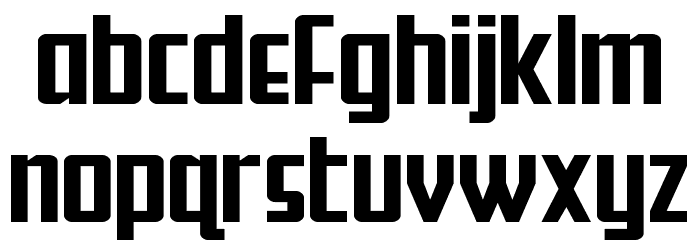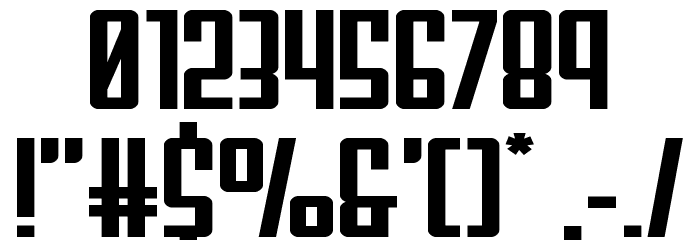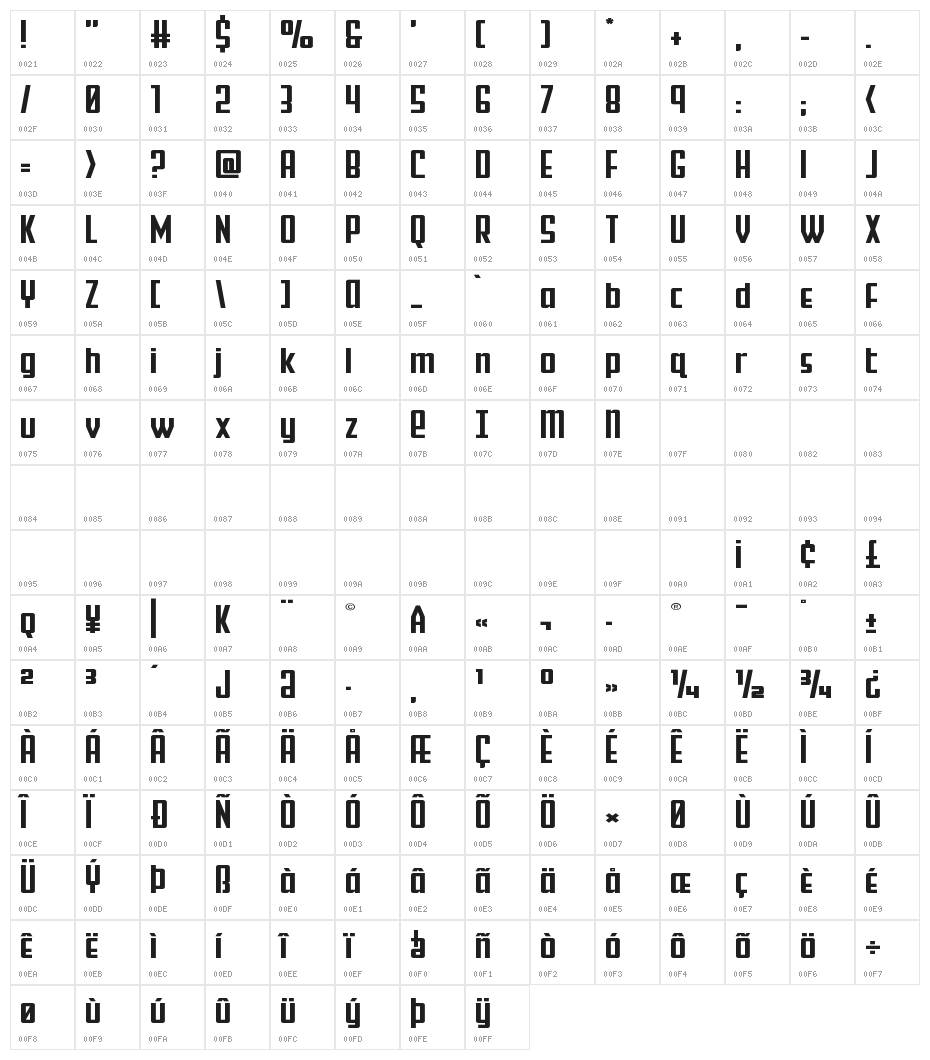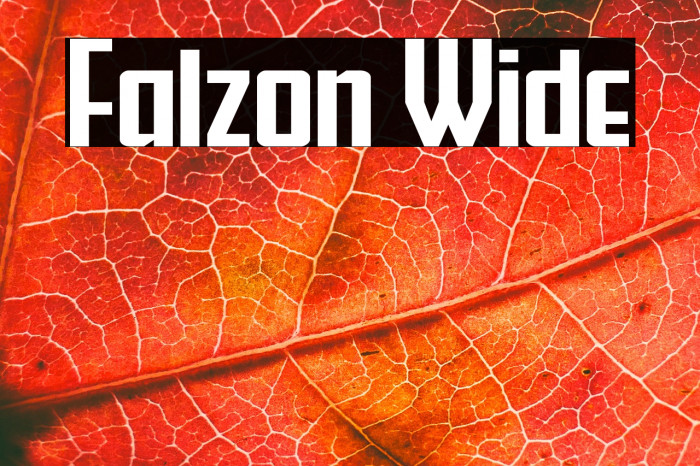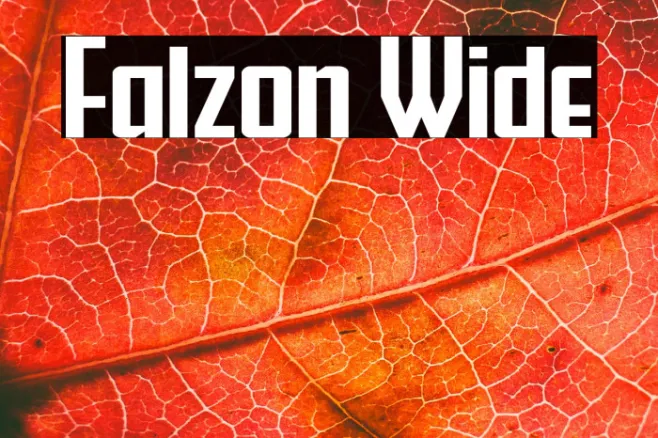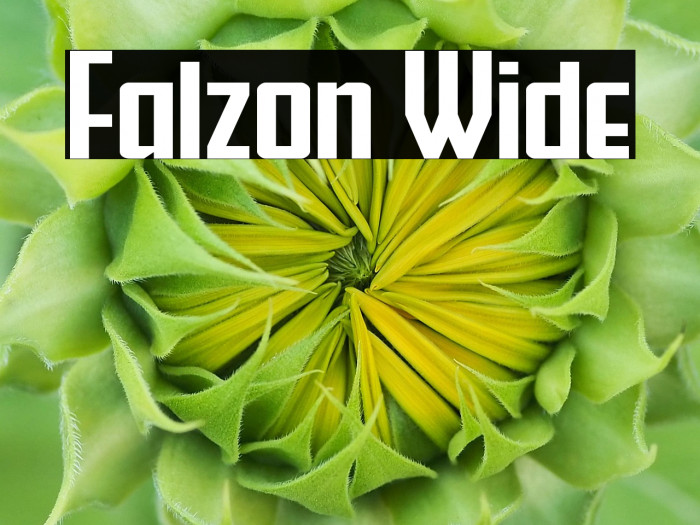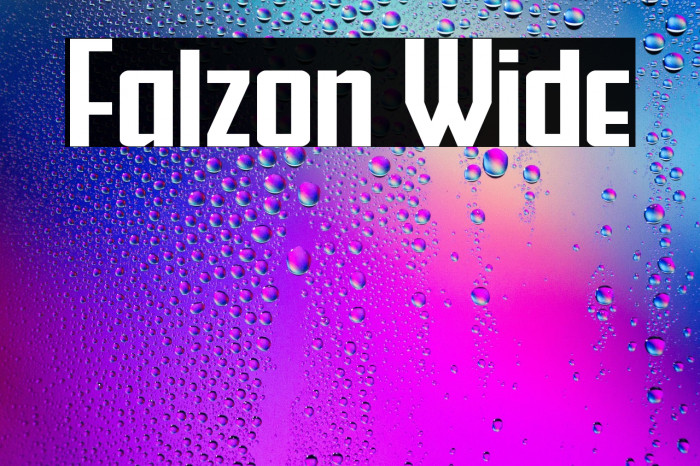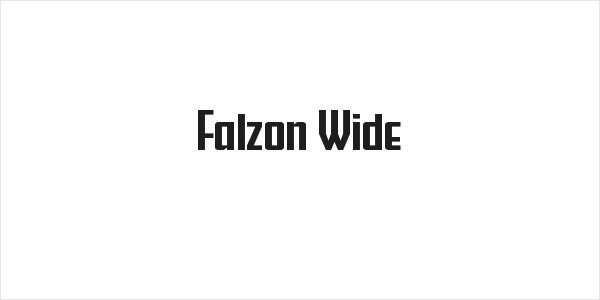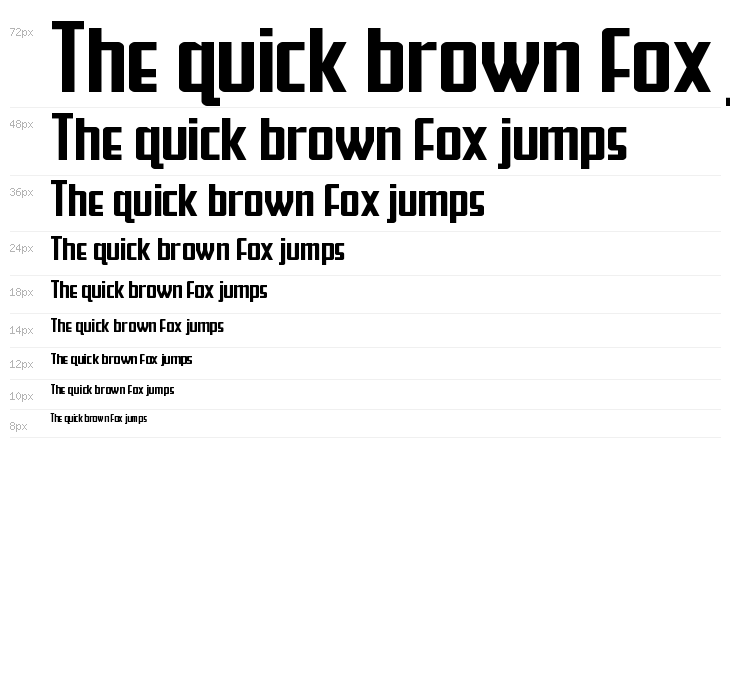
Falzon Wide Font
This font features a bold and impactful design with a geometric structure. The characters are wide and have a strong presence, making them ideal for attention-grabbing headlines. The uppercase and lowercase letters maintain a consistent width, contributing to a uniform appearance. The numerals and special characters are designed to match the boldness of the alphabet, ensuring a cohesive look across all text elements. The font's style is modern and assertive, suitable for projects that require a strong visual impact.
A bold, wide, and geometric font ideal for impactful headlines.
- Proposed Projects: Perfect for branding, posters, advertising, and any design requiring a strong visual statement.